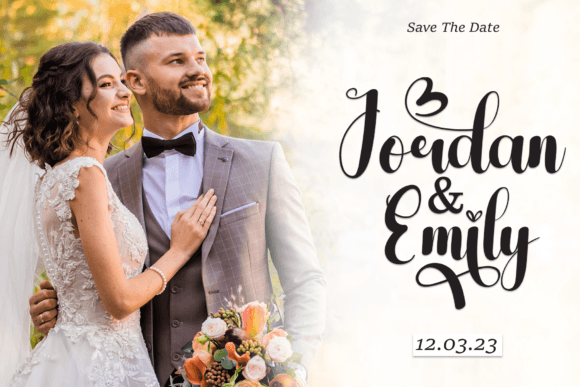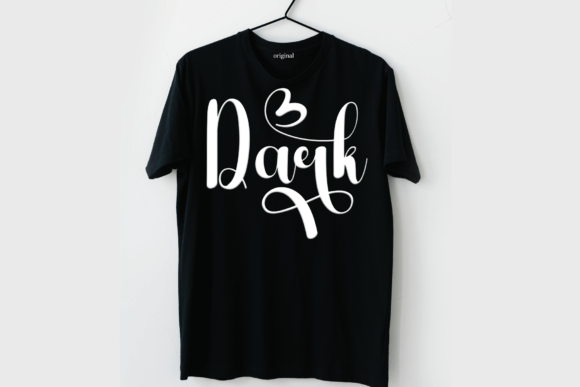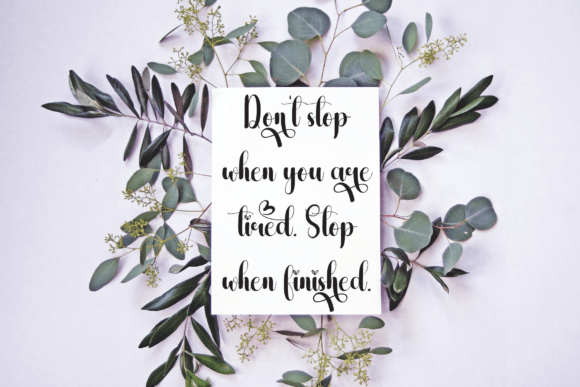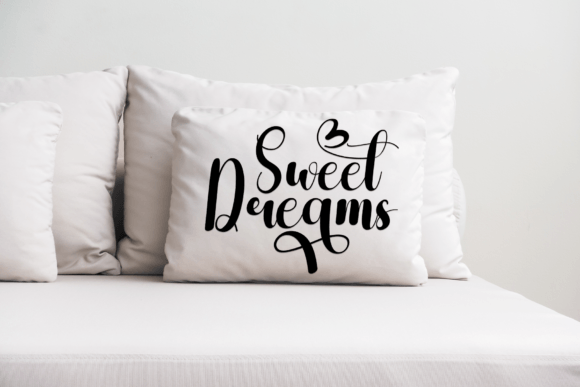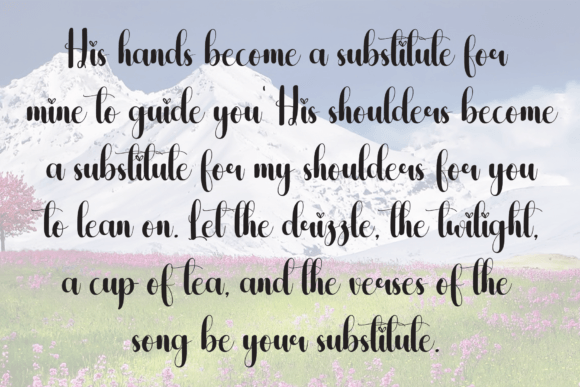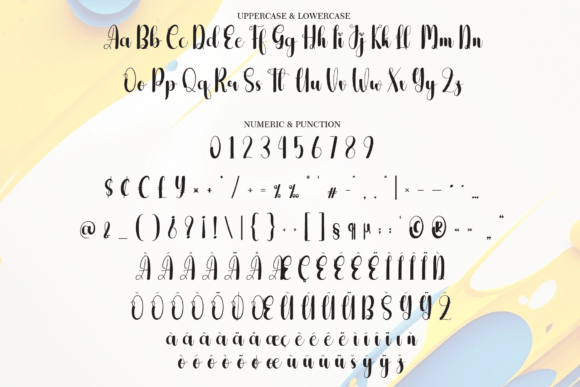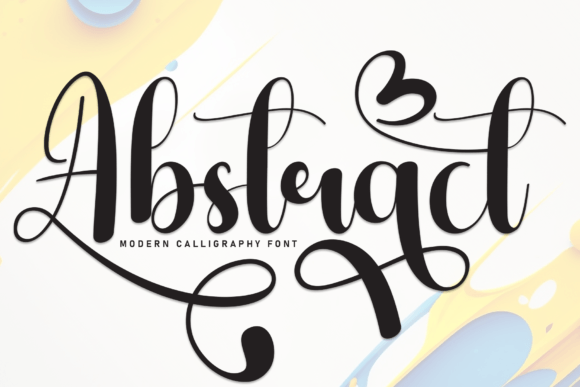
Adding a Touch of Whimsy: The Abstract Font
You know that moment when you’re brainstorming ideas for a special project and suddenly, the perfect font pops into your head? That’s exactly what happened to us when we discovered the Abstract Font. This charming handwritten font is like a warm hug for your designs, adding a fresh and casual touch that’s perfect for making a lasting impression.
The Abstract Font is designed to make your creative projects shine, whether it’s a wedding invitation, a birthday card, or any other design that needs a little extra love. Its sweet and friendly feel makes it an ideal choice for designers looking to add a personal touch to their work.
With the Abstract Font, you can elevate your designs from ordinary to extraordinary, making it a valuable addition to any designer’s toolkit. So why not give it a try and see how it can help you bring your creative vision to life?
- Unique Characteristics: Abstract Font features a unique blend of geometric and organic elements, creating a distinctive and modern aesthetic that is perfect for creating visually striking designs.
- Customization Options: This font offers advanced customization options, including kerning, ligatures, and OpenType features, allowing designers to fine-tune the font to meet their specific needs.
Overall, I think the Abstract Font is a great choice for projects that need a touch of elegance and sophistication. ✨ The unique, hand-drawn style really sets it apart from more traditional fonts, and the subtle texture adds depth and visual interest.
- Unique style: The Abstract Font’s abstract design makes it perfect for projects that require a creative and eye-catching look.
- High-quality textures: The font’s subtle texture adds a touch of realism and makes it feel more premium.
- Good legibility: Despite its abstract design, the font is still easy to read and understand.
However, there are some limitations to consider. ⚠️ For example, the font may not be suitable for projects that require a more formal or traditional look. Additionally, the font’s abstract design can sometimes make it difficult to read in smaller sizes.
- Limited use cases: The Abstract Font may not be suitable for projects that require a more formal or traditional look.
- Size limitations: The font’s abstract design can sometimes make it difficult to read in smaller sizes.
Overall, I think the Abstract Font is a great choice for designers who want to add a touch of creativity and sophistication to their projects. With its unique style, high-quality textures, and good legibility, it’s a great addition to any design toolbox.
Tip: Use Abstract Font to create eye-catching headings and add a touch of sophistication to your Canva designs.
Tip: Use Abstract Font to create custom typography and add a unique touch to your designs.
Tip: Use Abstract Font to create engaging presentations and documents with a touch of elegance.
Abstract Font is ideal for:
- Designing branding materials, such as logos and business cards.